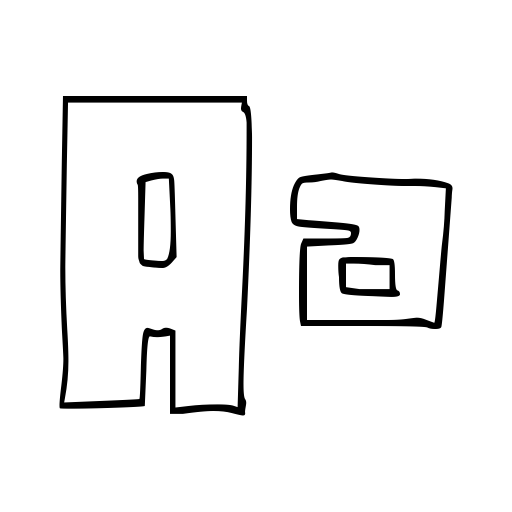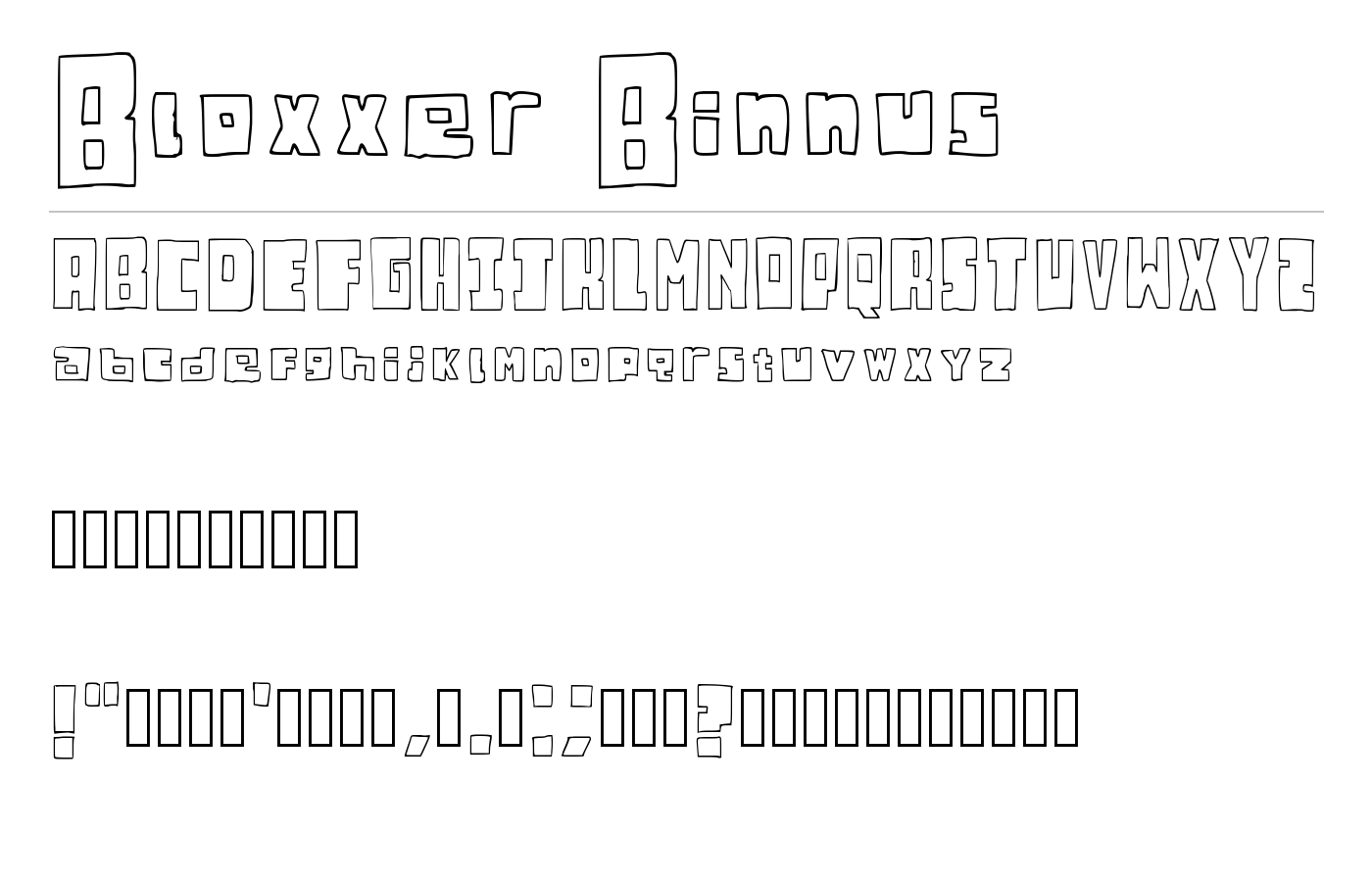
Bloxxer Binnus is a playful and quirky sans serif font characterized by its irregular, blocky letterforms with a hand-drawn outline style that adds a fun, casual feel. Its uneven shapes and slightly condensed width make it perfect for creative projects, children’s content, or any design seeking a lively, informal vibe. This font shines in headlines, logos, and posters where a unique, eye-catching personality is desired.
Bloxxer Binnus Font
About Bloxxer Binnus Font